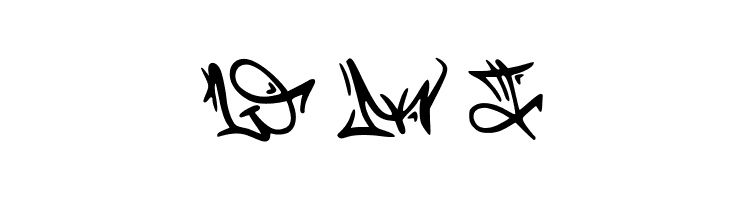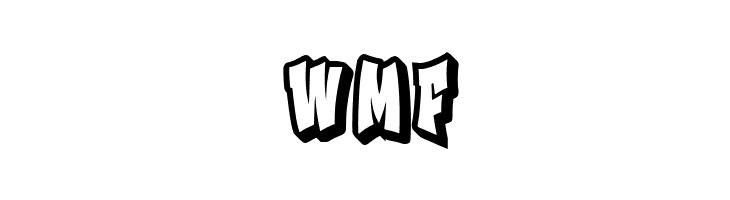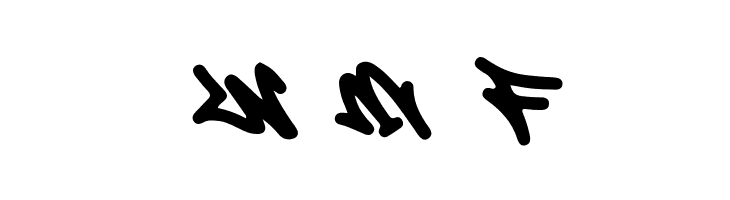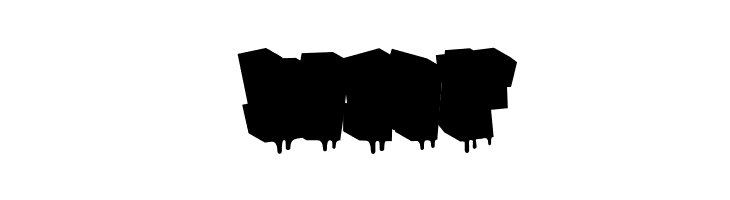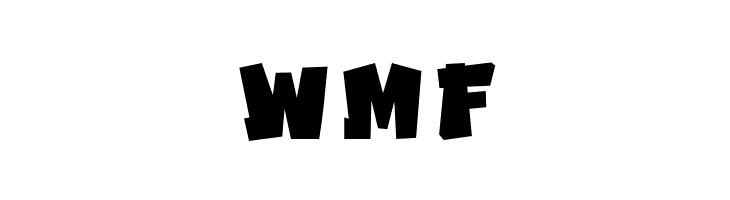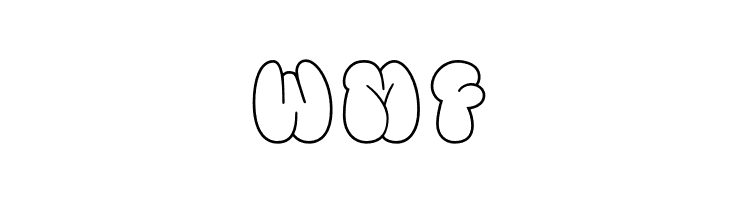
A bold, playful bubble graffiti-style font with rounded, tightly packed characters.
A bold, graffiti-style font with a unique dripping effect.
A bold, graffiti-inspired font with a playful and energetic style.
A bold, graffiti-inspired font with dynamic strokes and sharp angles.
A bold, graffiti-style font with dynamic shapes and a three-dimensional effect.
A bold, graffiti-inspired font with a playful, hand-drawn style.
A bold, graffiti-inspired font with a playful, inflated appearance and shadow effect.
A graffiti-inspired font with bold, rounded forms and an inner outline effect.
Bold graffiti-style font with sharp angles.
Graffiti-inspired, bold and dynamic font.
Bold, extruded graffiti-style font with a 3D effect.
Bold, graffiti-inspired script with sharp angles and heavy slant.
Expressive graffiti-style handwritten font with bold, playful strokes.
A bold, graffiti-inspired font with dynamic and energetic strokes.
A graffiti-inspired font with bold, dynamic characters and playful arrow elements.
A bold, graffiti-inspired font with an urban, edgy style.
A bold, graffiti-inspired font with dynamic strokes and sharp angles.
A bold, angular font with a graffiti-inspired, edgy design.